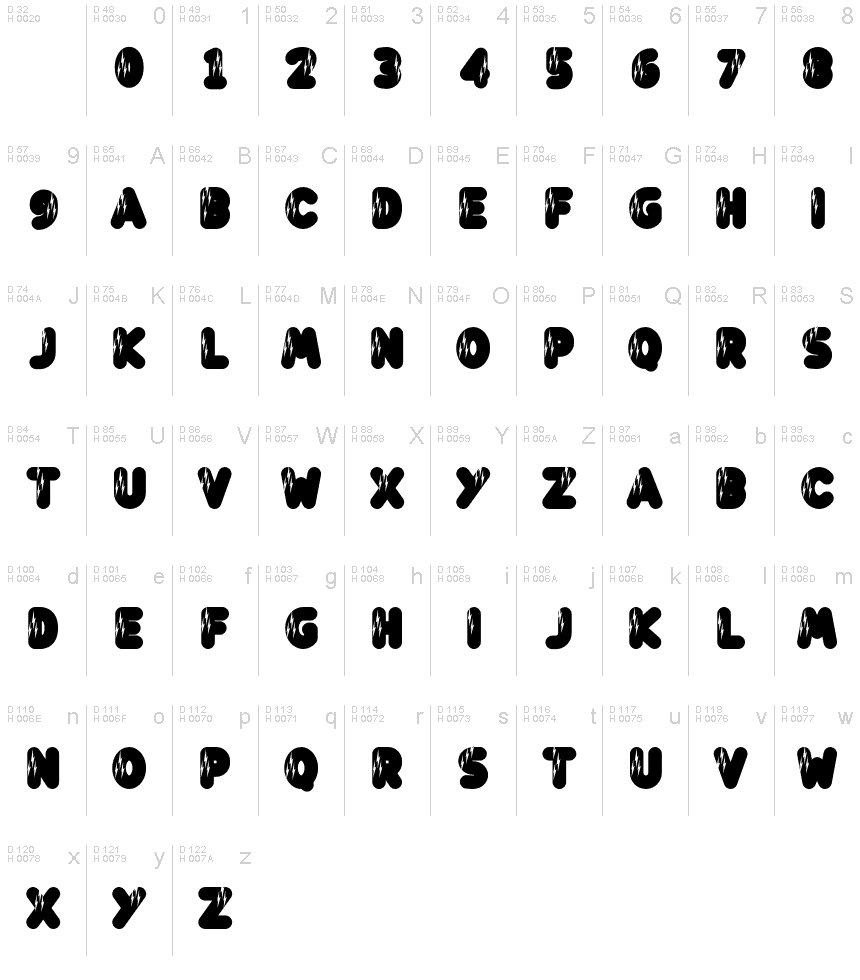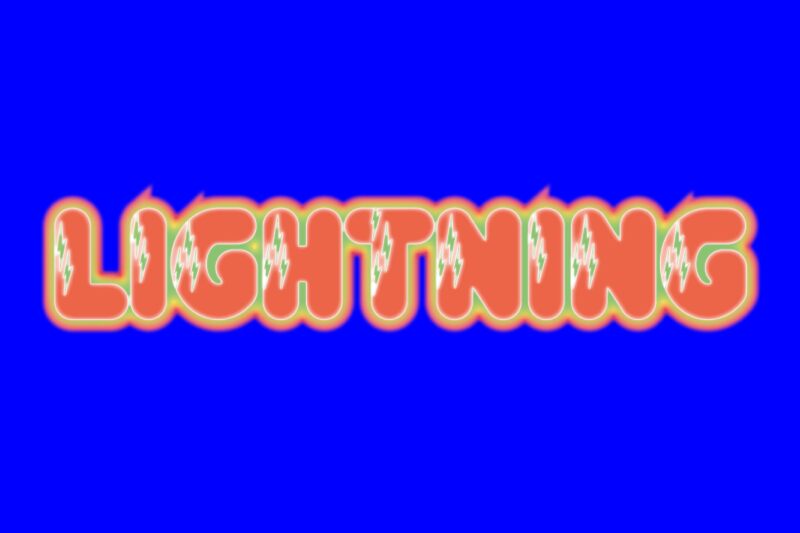
Lightning Bold
Lightning Bold, a mesmerizing creation by Design Vector10, is a display font that exudes an electrifying energy. Its decorative style ignites visual impact and captivates the audience at first glance. With its extra-bold weight, this font commands attention and leaves a lasting impression
Lightning Bold is perfect for projects aimed at capturing the essence of excitement and dynamism, such as sports branding, event promotions, album covers, and futuristic designs. Let this striking typeface illuminate your designs with its electrifying presence.